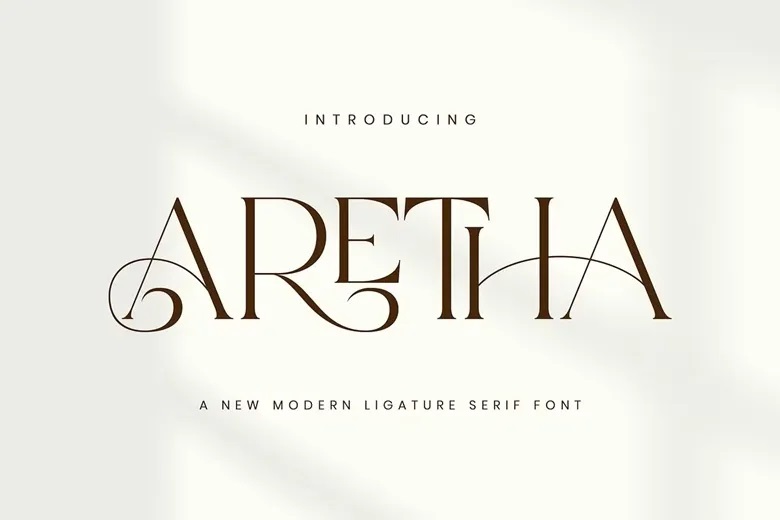
Aretha Font
Give your brand a fresh look with Aretha, a modern serif ligature font designed for high-fashion style. Aretha combines sharp serifs with smooth, flowing ligatures that connect letters as elegantly as fine jewelry.
Its balanced design and tall x-height create a timeless, luxurious feel, making Aretha a standout choice for fashion and beauty brands. Aretha works best for high-fashion logos, magazine headers, boutique branding, and luxury wedding invitations.
Aretha Serif Font